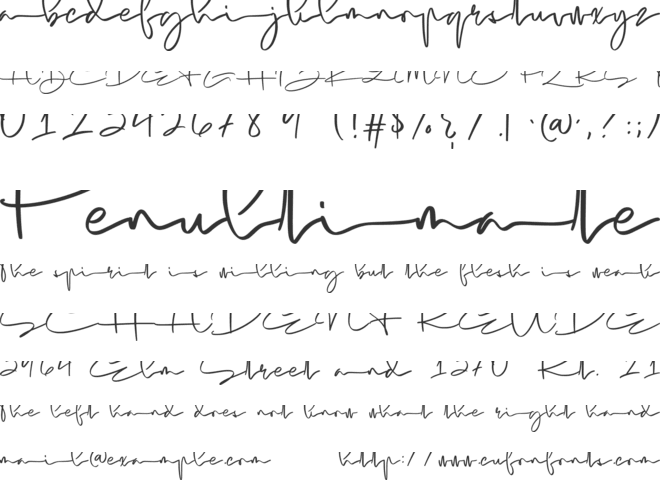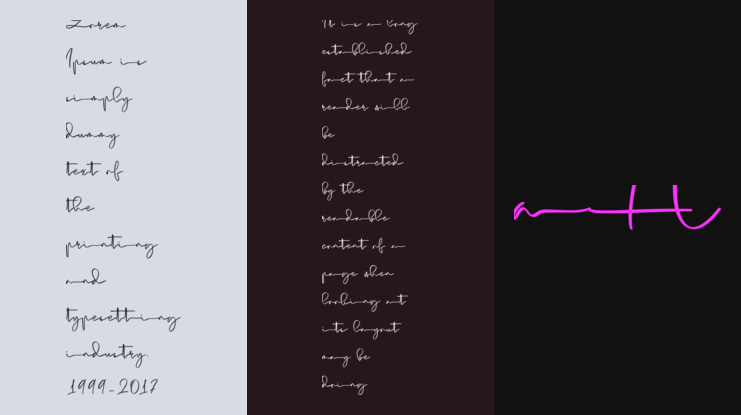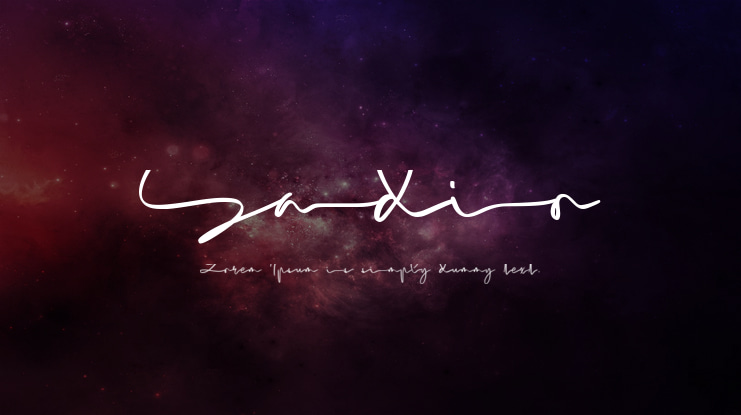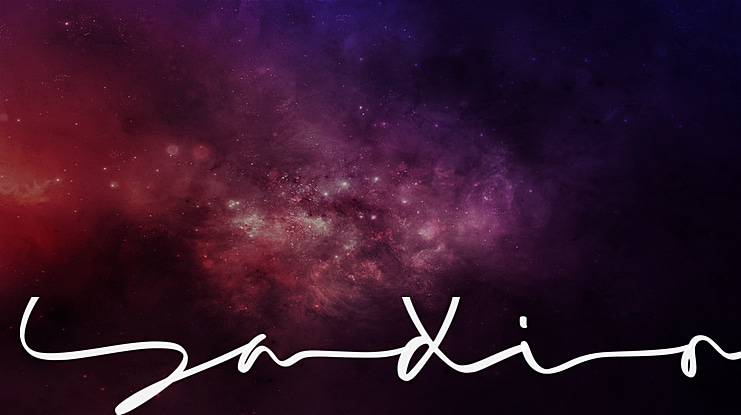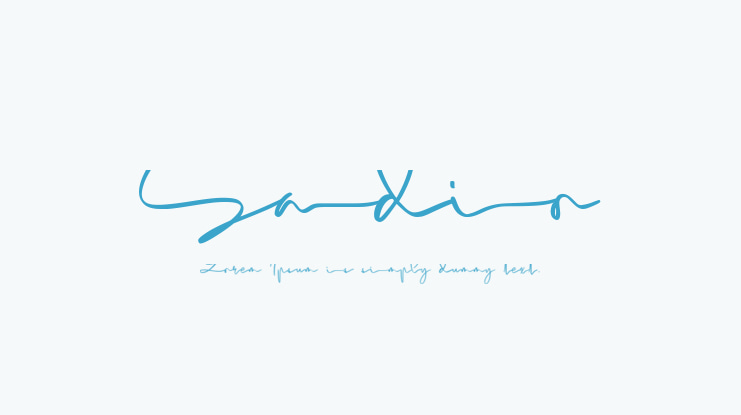
Sadio Font
Abo Daniel 2020
SADIO - the extended signature -
This font is created specifically for logotypes. Yes, this font is only suitable for making logos or headline text. This font is not suitable for use in subtitles or main content. It is great for branding, business card, signature, and more.